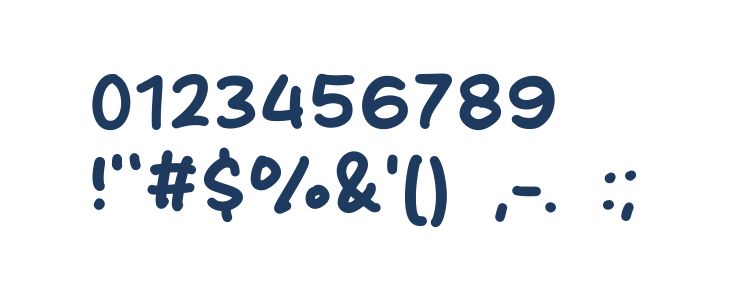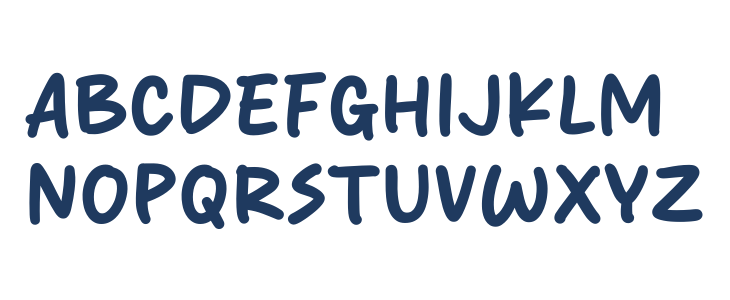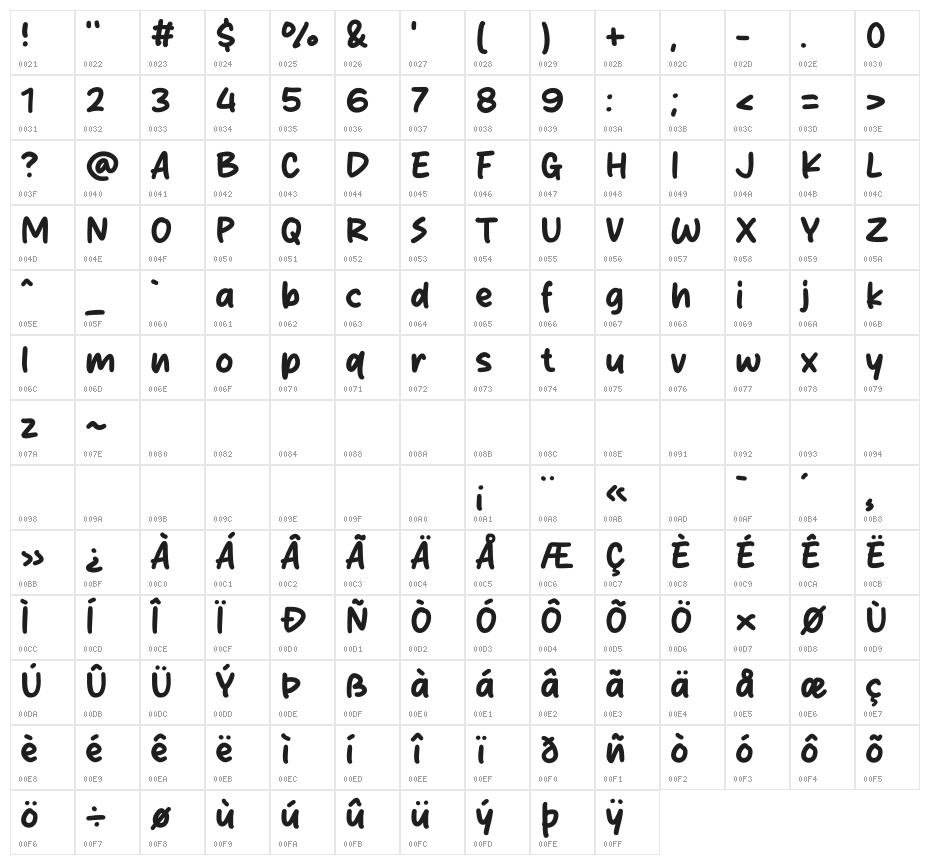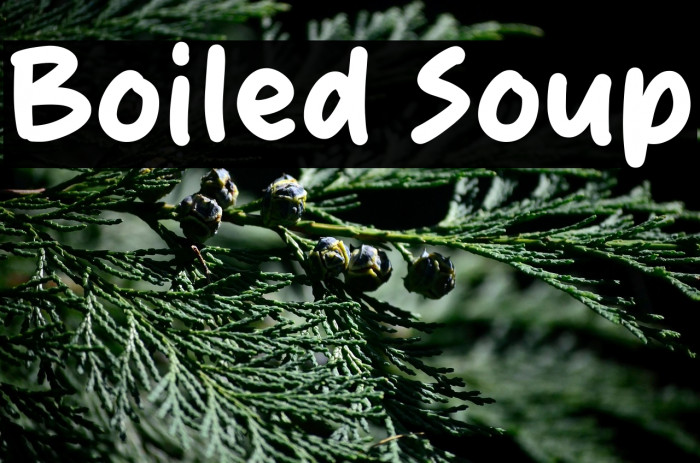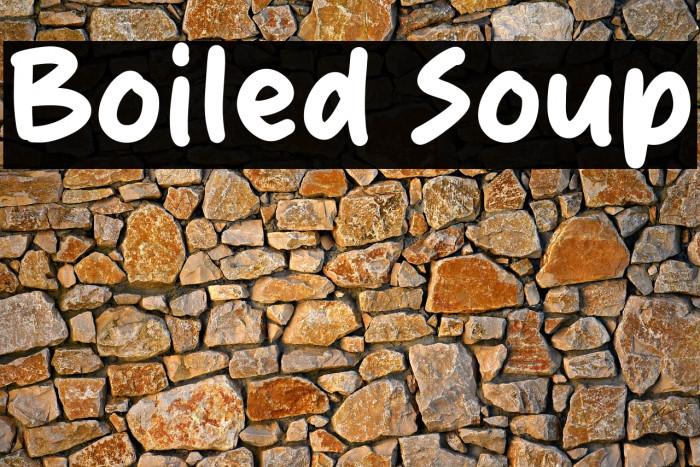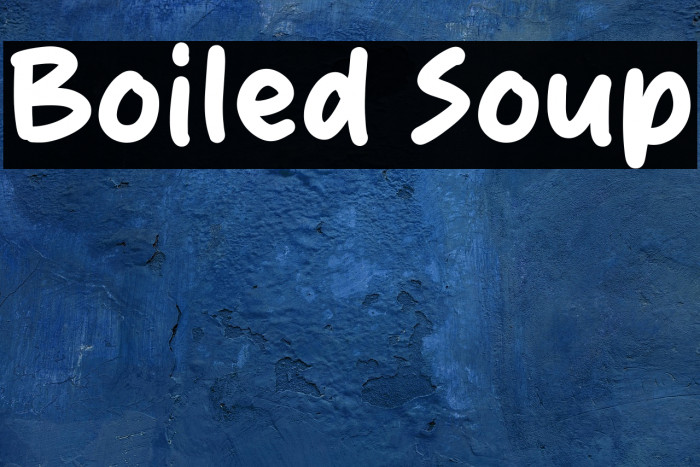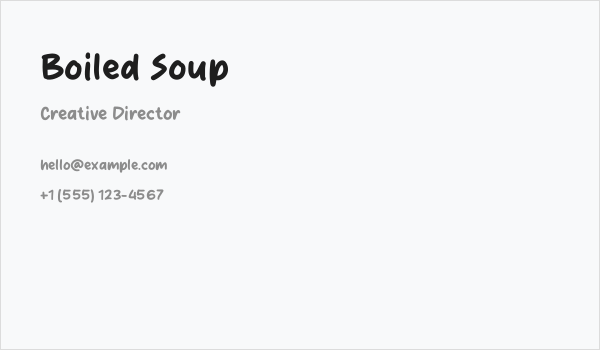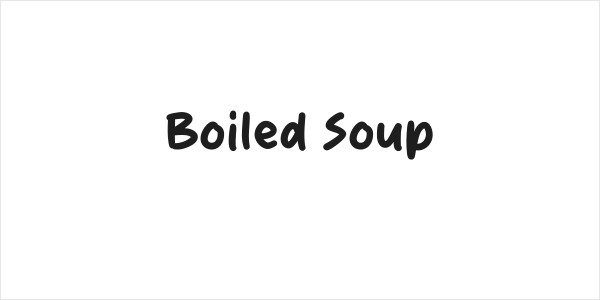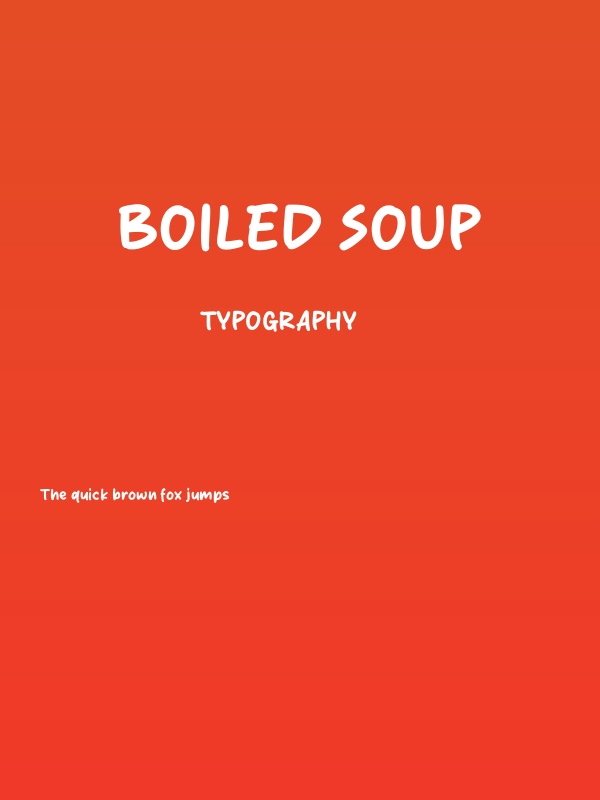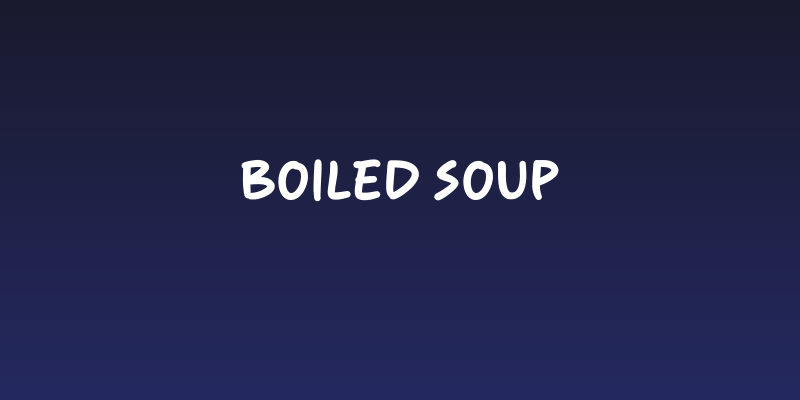
Boiled Soup Font
Boiled Soup Description
A playful, rounded handwritten typeface with consistent stroke thickness and informal, friendly character shapes. The letters are bold and slightly irregular, mimicking natural handwriting with a casual appearance.
| Overall Style | Playful, Informal, Handwritten |
| Use Case | Headlines, Posters, Branding, Children's materials |
| Proposed Projects | Children's books, greeting cards, posters, branding for casual or fun products, social media graphics. |